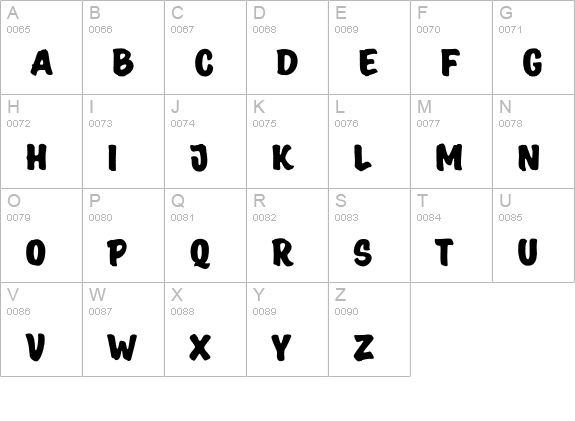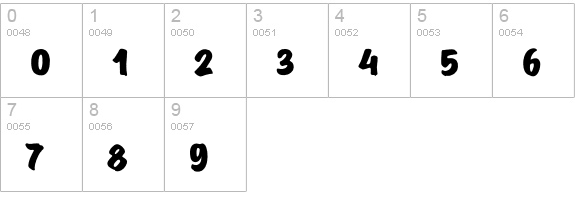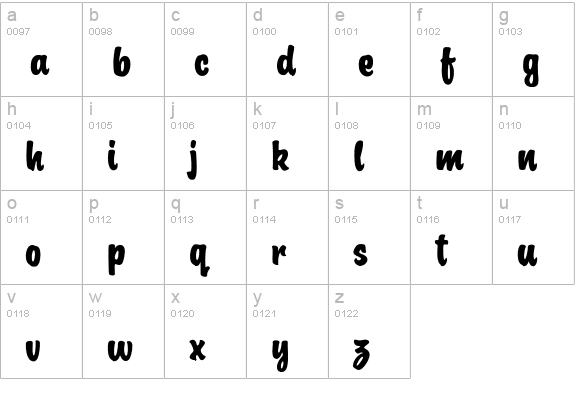
Signorita Rough Normal is the standard, neutral variant in the Signorita typeface family \xE2\x80\x94 well suited to general body text, paragraphs, and standard typographic work.
Signorita Rough Normal font is a charming and versatile typeface that exudes a sense of casual elegance and handwritten flair. Its unique rough edges give it a touch of authenticity and character, making it perfect for a wide range of design projects. Whether you're creating invitations, greeting cards, posters, or branding materials, Signorita Rough Normal font will add a touch of personality and style to your work. The best part? Signorita Rough Normal font is available for free download at FontsMarket.com. Simply visit the website and start using this beautiful font in your projects today. Don't miss out on the opportunity to enhance your designs with the delightful charm of Signorita Rough Normal font, all at no cost to you.